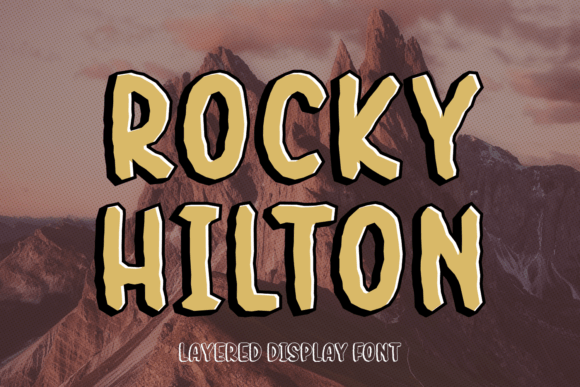
Step into the realm of visual splendor with Rocky Hilton Font, a remarkable display font poised to captivate your imagination. A masterpiece crafted by Faris (7NTypes), Rocky Hilton radiates boldness, dynamism, and undeniable creativity.
Immerse yourself in the depths and dimensions of this multi-layered font. Each stroke, each curve, and each contour intertwines harmoniously, crafting an aura of captivating intricacy. Its sturdy and unyielding forms command attention, ensuring your designs emanate a distinct allure.
Behold the versatility of Rocky Hilton, a font that seamlessly adapts to a myriad of projects. Unleash its potential in branding and advertising endeavors, where its striking presence ignites a blazing trail of impact. Let Rocky Hilton elevate your designs to new heights, leaving an enduring impression that sets you apart from the ordinary.
Unleash the boundless possibilities that await with Rocky Hilton, the quintessential font for vintage logos. Its timeless aesthetic, reminiscent of a bygone era, injects a touch of nostalgia and authenticity into your creations. Watch in awe as your vintage logos exude a captivating charm, evoking a sense of heritage and enduring appeal.
Experience the transformative power of Rocky Hilton, a font meticulously crafted to ignite your creativity. Push the boundaries of design and leave a lasting impression with every project.